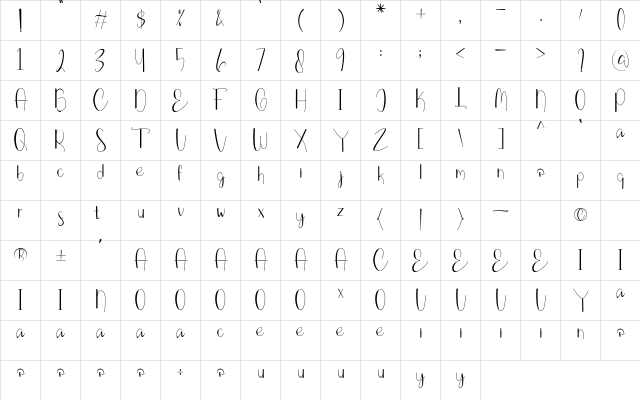
Lovely Laila Regular
| Foundry | Fillo Graphic |
| Designer | Nopianti |
Design Context for Lovely Laila Typeface
Lovely Laila is a composed and adaptable typeface that performs quietly and consistently across a wide range of design contexts.